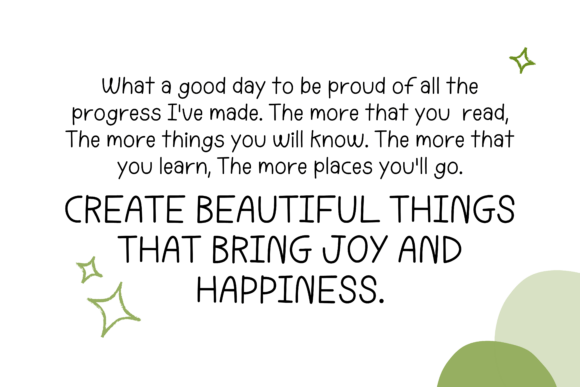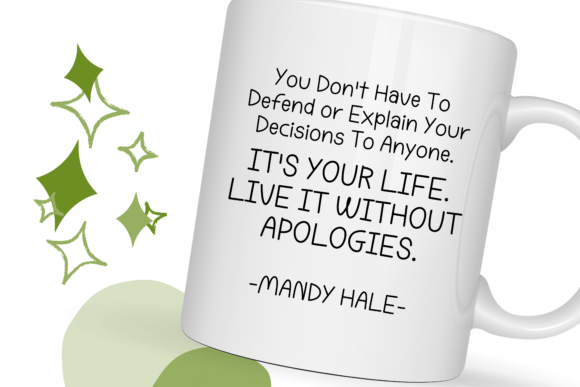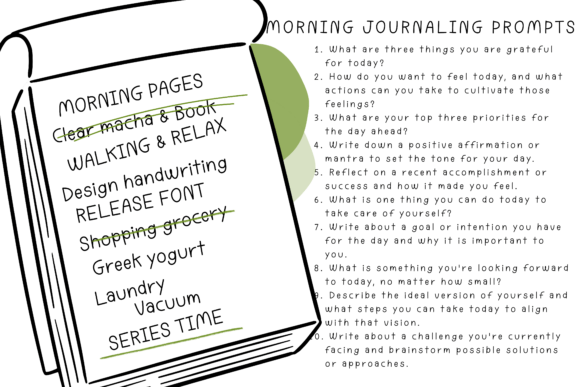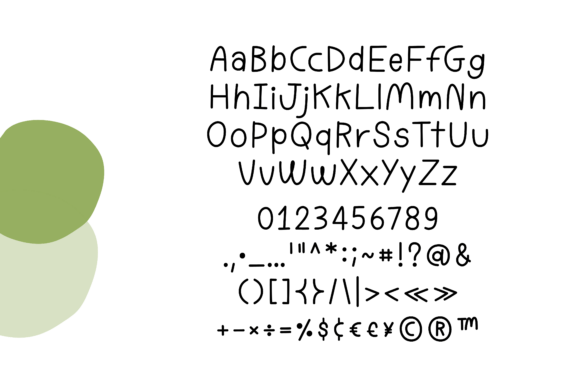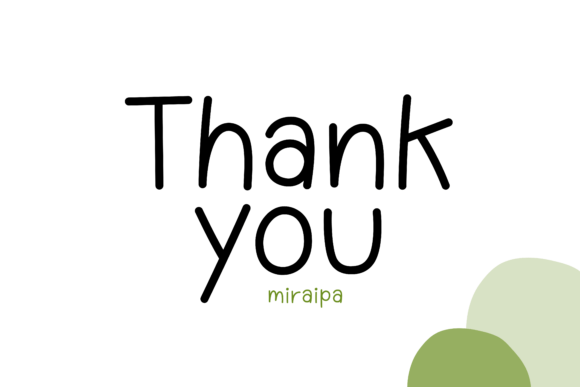
Introduction to Juke Font
Have you ever been in the midst of a creative project, scrolling through font options, and suddenly, your eyes land on that one font that just makes everything click? For designers, this moment is pure magic, and it’s exactly what happens when you discover the Juke Font. This quirky and friendly Handwritten sans-serif font style is the perfect addition to any project, adding a cute touch that’s sure to delight.
From t-shirts and coffee mugs to hoodies and tote bags, the Juke Font is a versatile design resource that’s perfect for printing projects. Its high quality and transparent background make it a breeze to work with, and its free download availability means you can access it without breaking the bank. Whether you’re working on a digital project or social posting, the Juke Font is the ideal choice for adding a funny and cute final touch.
Honest Review: Juke Font
I recently had the opportunity to work with Juke Font, a high-quality design resource that offers a unique and stylish approach to typography. As a designer, I’m always on the lookout for fresh and creative project elements, and Juke Font definitely delivers.
Overall, I’m impressed with Juke Font’s unique style and high-quality design. It’s a great addition to any designer’s toolkit, especially for creative projects that require a touch of sophistication and flair.